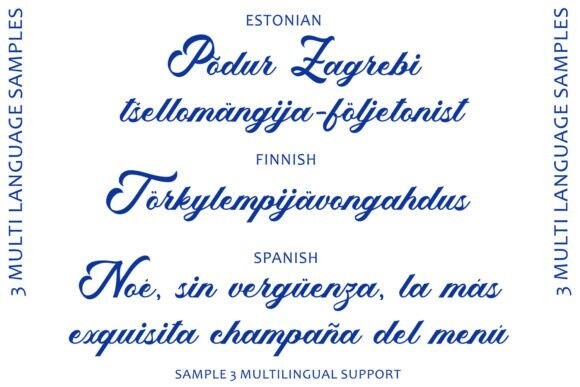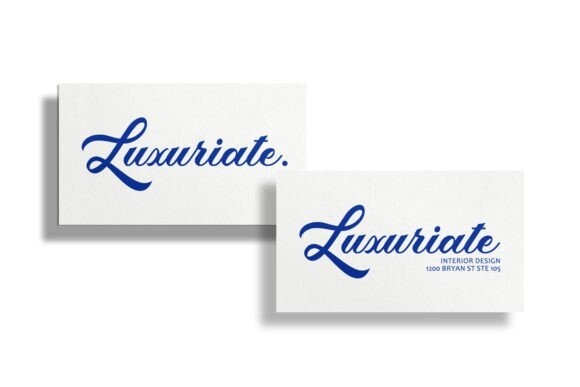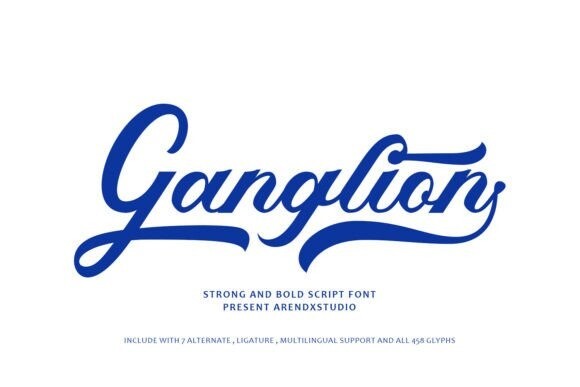
Ganglion Font
Ganglion font is a robust and commanding script typeface that exudes strength and boldness, making it a standout choice for various design applications. With its strong and bold letterforms, Ganglion commands attention and makes a powerful statement. The font’s assertive script style conveys confidence and authority, making it ideal for impactful headlines, logos, and branding materials.